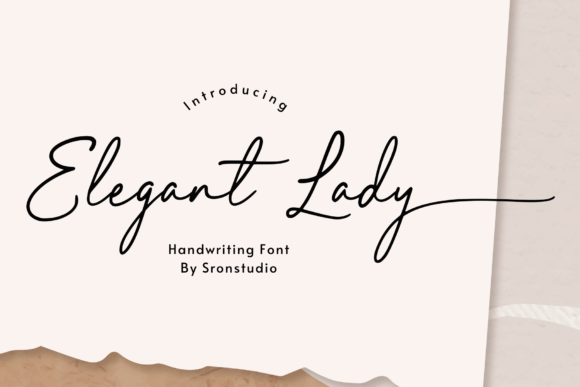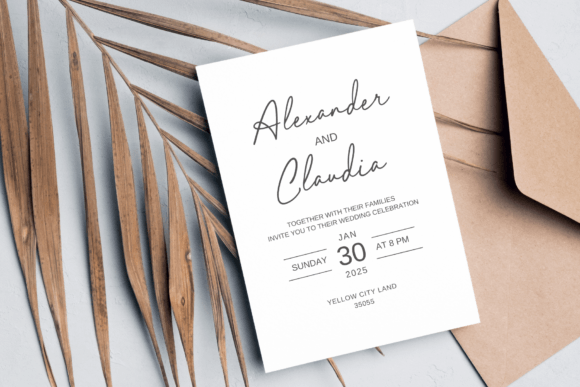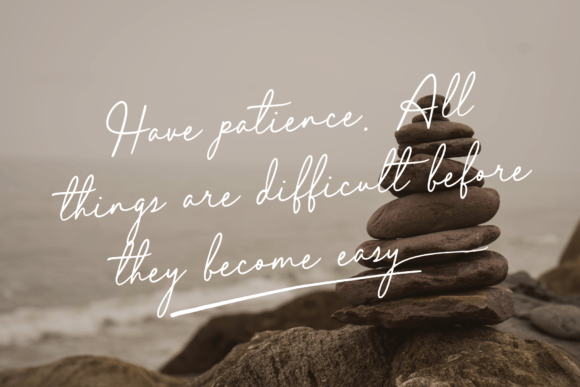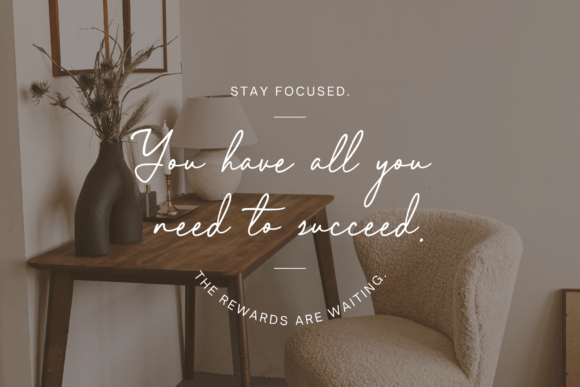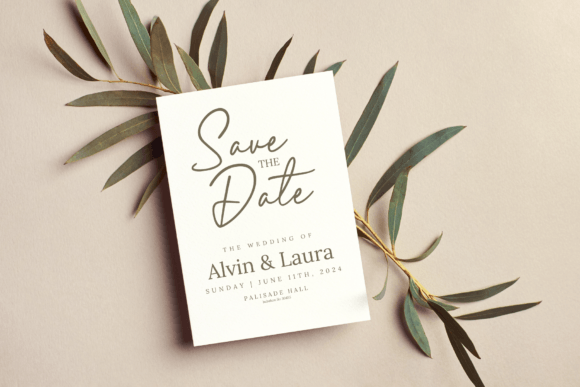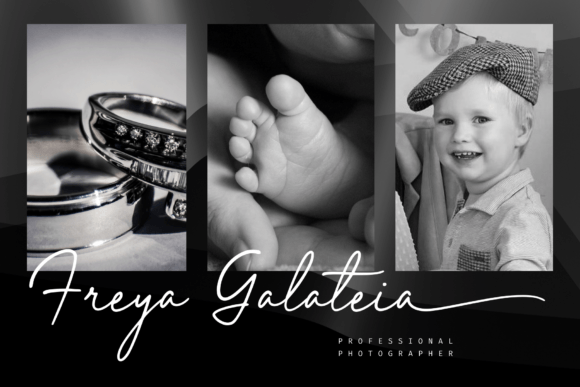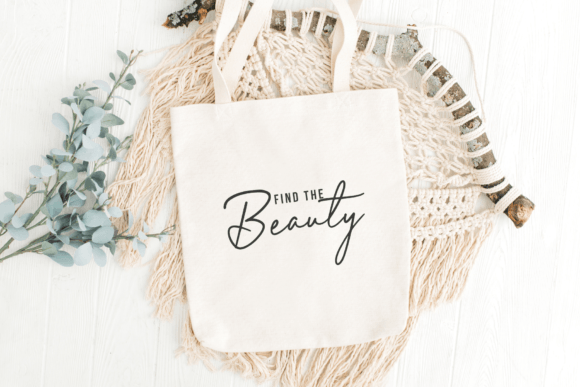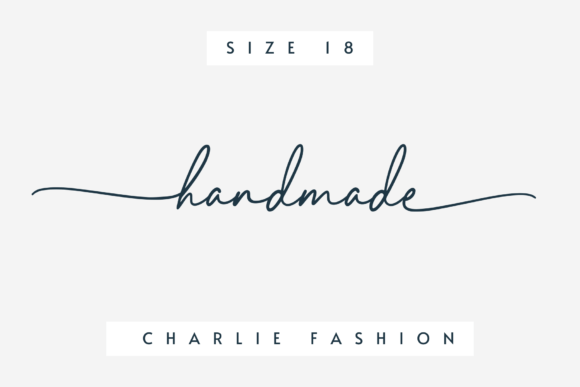
Elegant Lady Font
Elegant Lady is a script font designed for moments of pure beauty, specifically tailored for weddings. With its graceful and flowing letterforms, this font adds an exquisite touch to any wedding-related project. Perfect for invitations, place cards, or any design element requiring a sophisticated and elegant script, Elegant Lady brings a timeless charm that complements the beauty of a wedding day, enhancing the visual allure of your special moments.